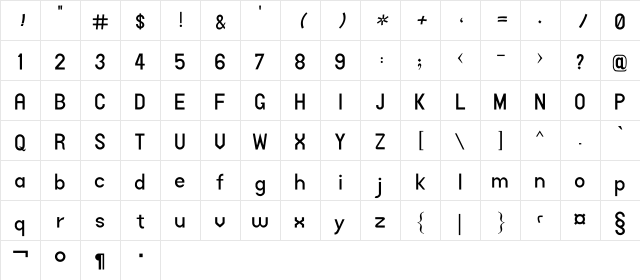
AlFars 15 Farnaz Regular
Designer: Syed Irtiza Hassan Rizvi
Complete AlFars 15 Farnaz Regular glyph index. Displaying only characters natively supported by AlFars 15 Farnaz Regular font.
Design Context for AlFars 15 Farnaz
AlFars 15 Farnaz is a composed and adaptable typeface that performs quietly and consistently across a wide range of design contexts.